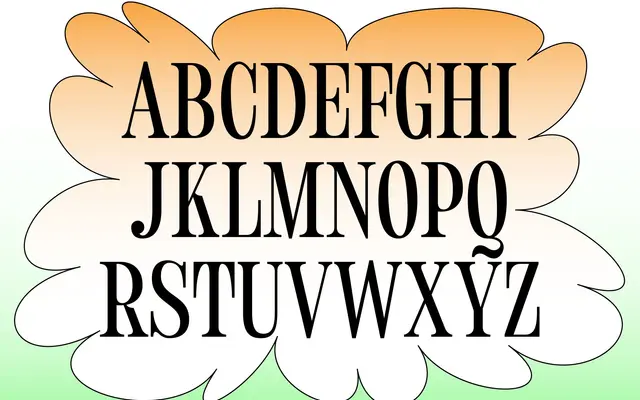
A single-weight semi-condensed serif covering Latin Extended-A with a modest set of alternates and ligatures.
Available in one weight, Hideaki is a semi-condensed serif with a cap height of 750 units and a relatively tall ascender, giving it a vertical, upright texture suited to display or editorial headings. Glyph coverage reaches Latin Extended-A with support for Western European languages, and the font includes a handful of stylistic alternates for A, O, a, o and several numerals alongside standard fi and fl ligatures. With no italic and no additional weights, the family is intentionally minimal.
Described explicitly as a semi-condensed serif; the page confirms a single upright serif style with no italic or width variants mentioned, sitting in the condensed serif subcategory.